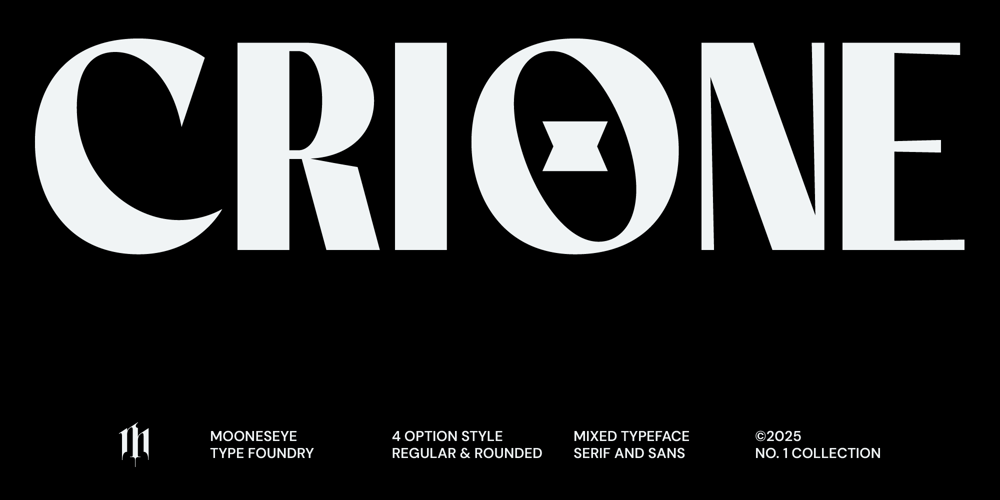
Crione Mixed
Crione Mixed font
Crione Mixed Font Family was designed by Elhaq Farid and published by Mooneseye Studio. Crione Mixed contains 4 styles and family package options. Crione is a captivating mixed display font that offers a compelling duality and versatile design options. Featuring a bold, modern sans-serif uppercase and an elegant, slightly gothic serif lowercase, Crione creates a striking visual contrast. What sets Crione apart are its two distinct edge options: sharp edges for a crisp, contemporary feel, and rounded edges for a softer, more approachable aesthetic.This flexibility makes Crione perfect for a wide range of graphic design needs, including impactful posters, eye-catching magazine layouts, and distinctive band album titles. Its modern sensibility, subtly infused with a hint of gothic undertones, allows it to stand out and create memorable designs. Whether you choose the sharp, precise lines or the smooth, rounded corners, Crione delivers a unique and powerful visual statement.